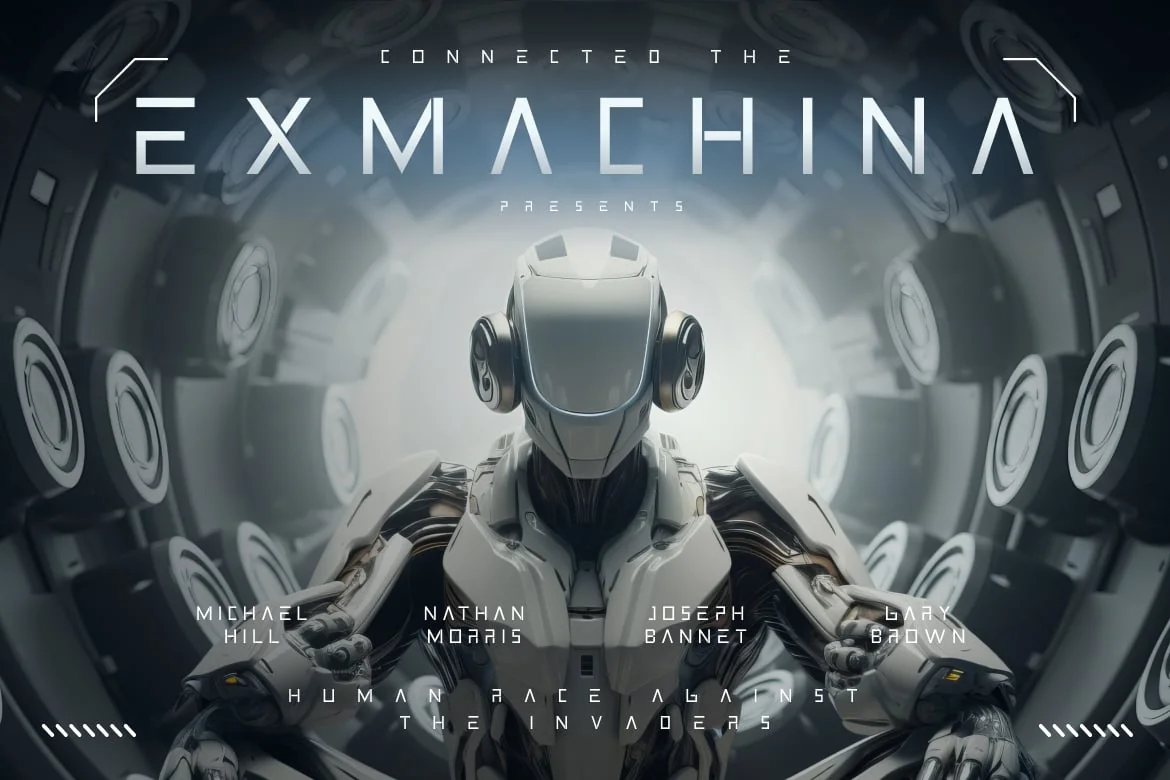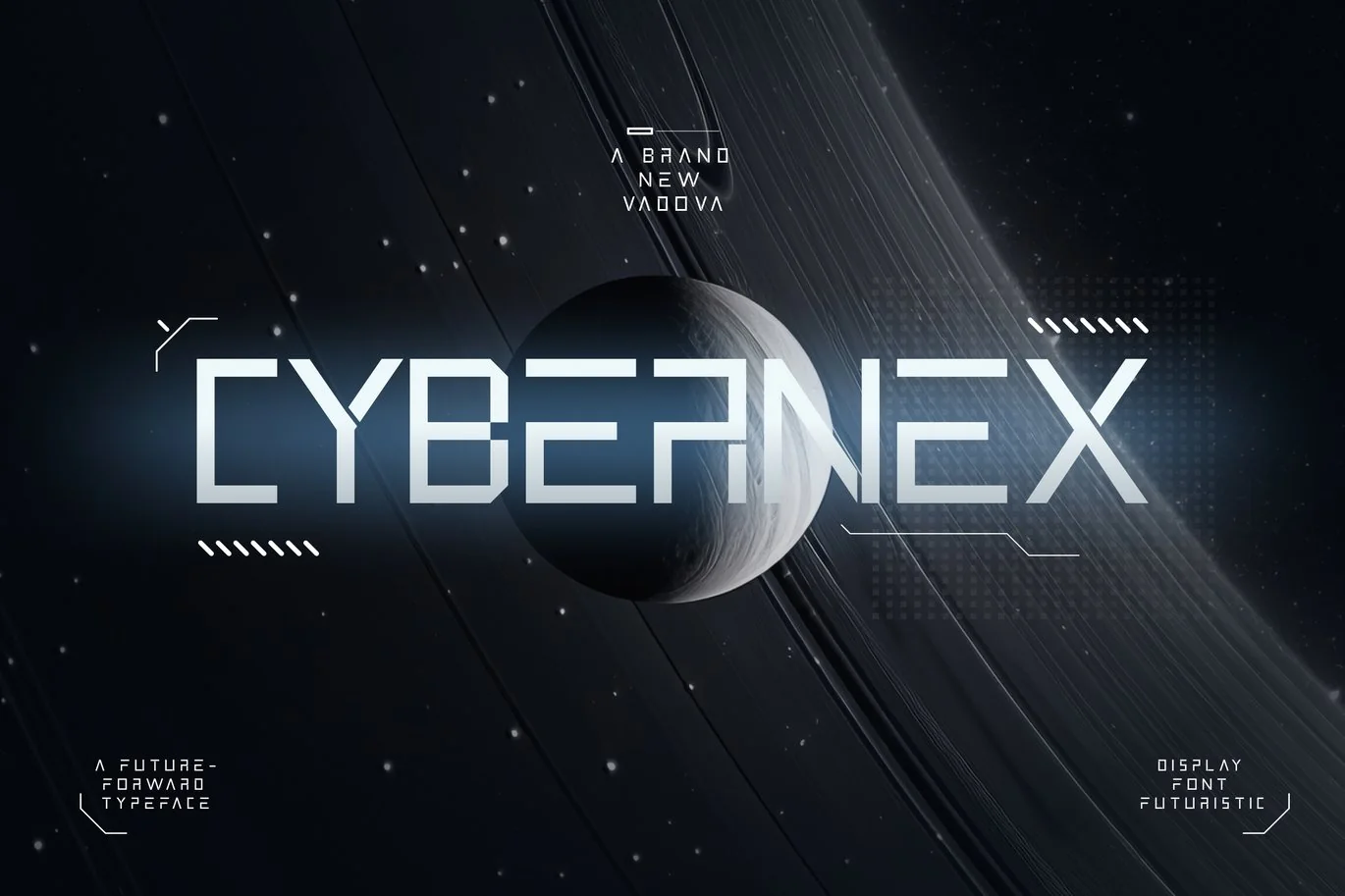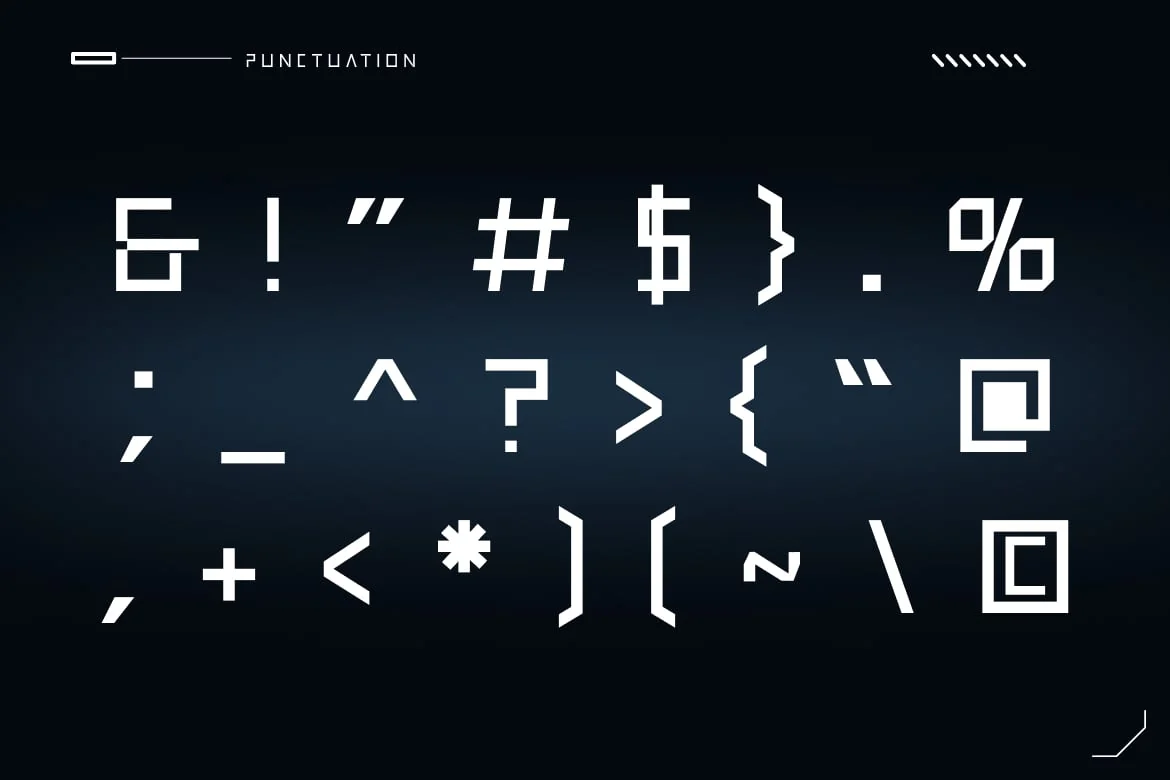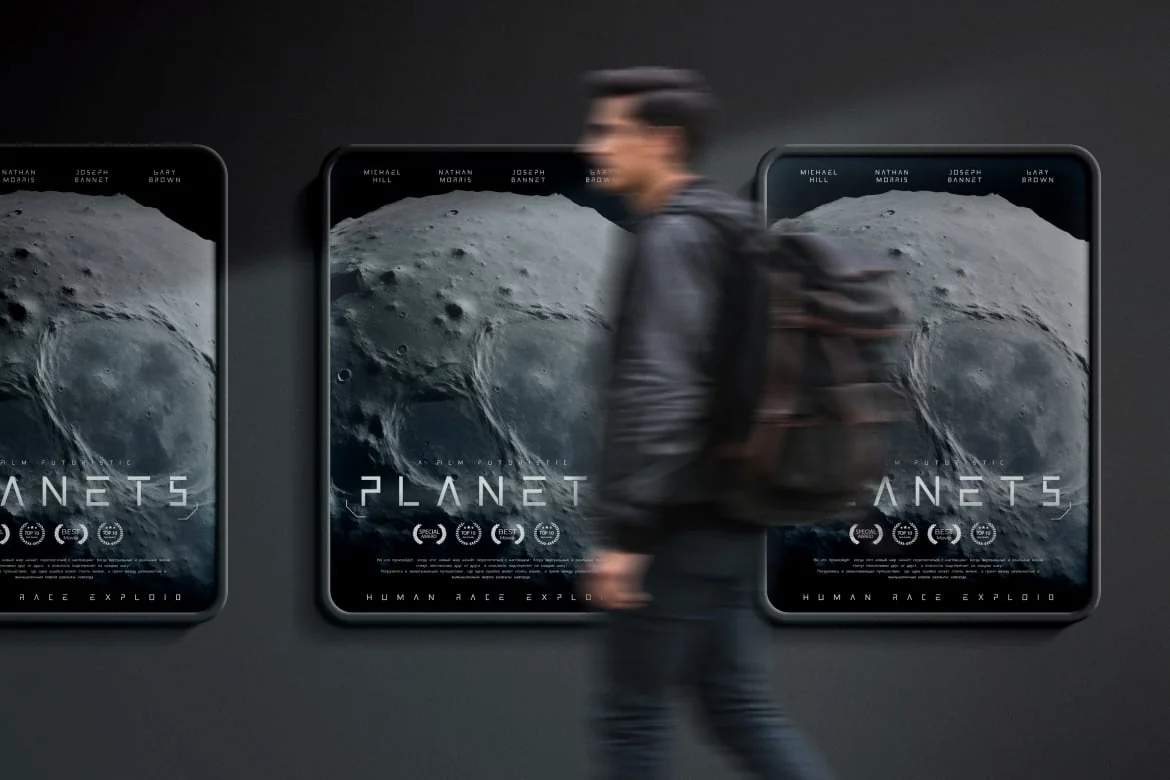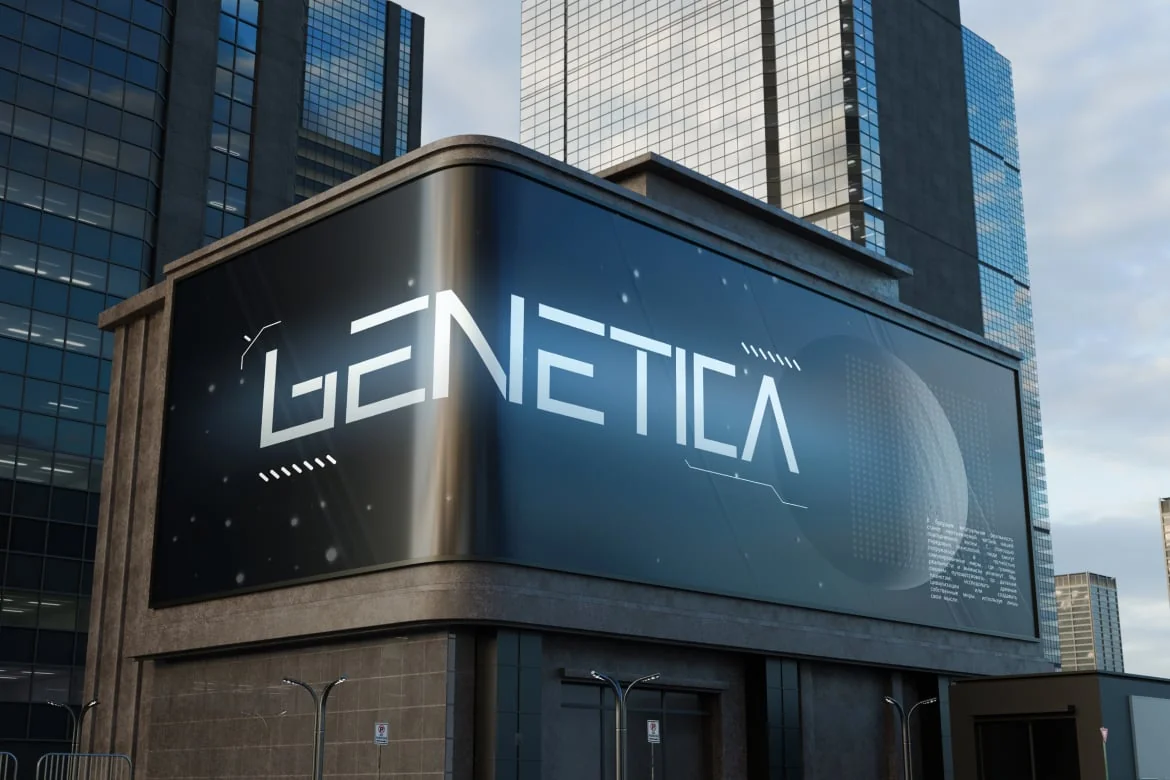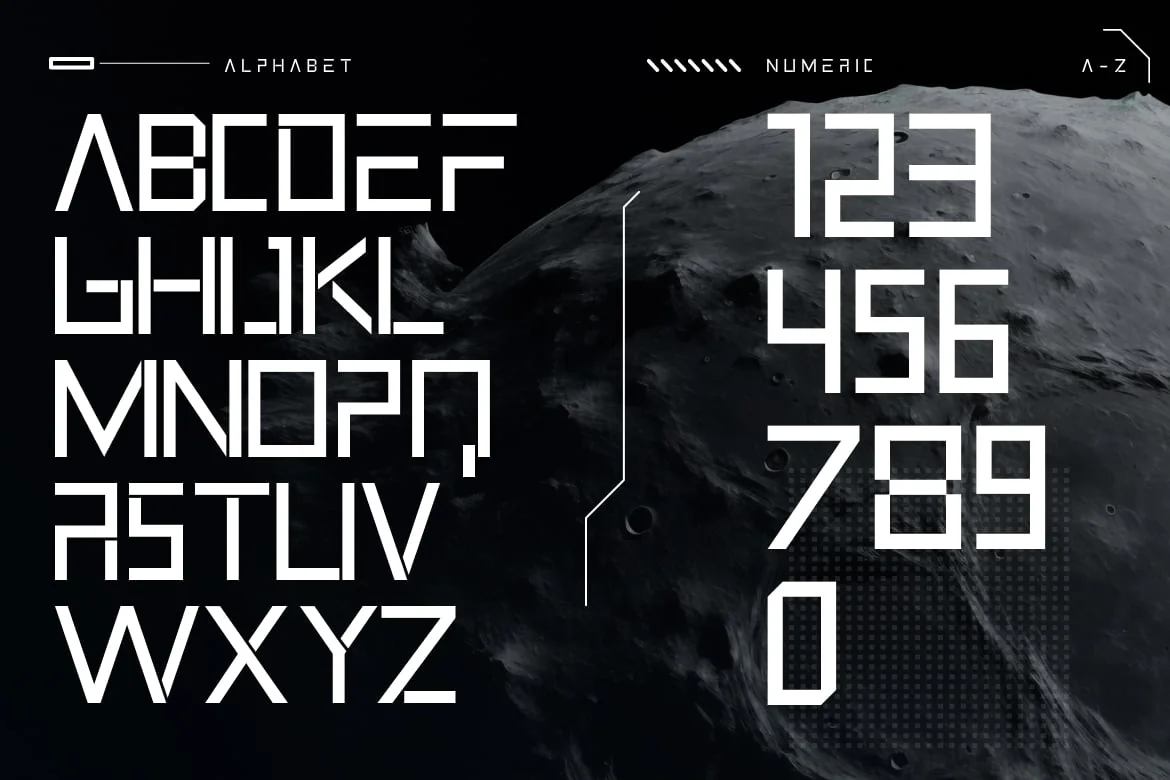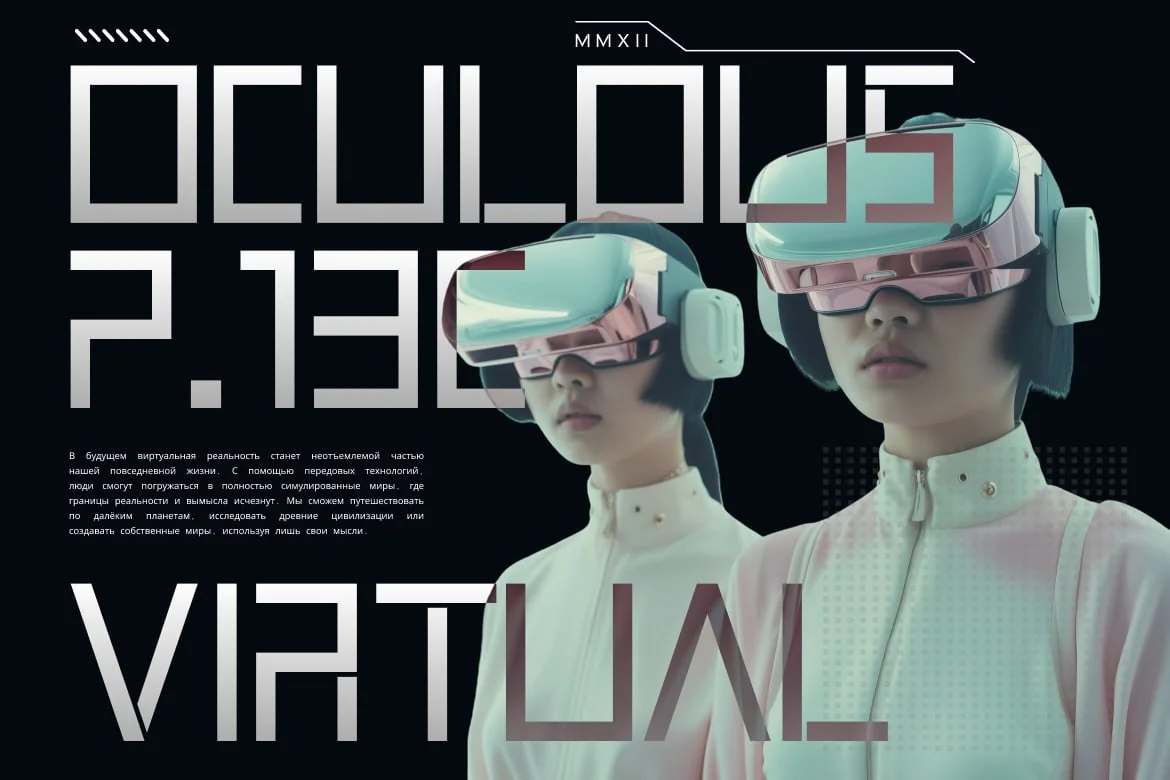
Cybernex Futuristic Font
Elevate your designs with Cybernex Futuristic Font, a cutting-edge futuristic typeface designed for the digital age. Its sleek, angular letterforms and geometric precision embody the essence of advanced technology, cyberpunk aesthetics, and sci-fi innovation. With its bold and modern appeal, Cybernex is perfect for high-tech branding, gaming interfaces, space-themed designs, and digital posters. The font’s sharp edges and minimalistic strokes create a futuristic ambiance that feels both sophisticated and powerful. Whether used for sleek UI designs or striking headlines, Cybernex brings a visionary edge to any creative project.
- Uppercase & Lowercase characters
- Numeral & Punctuations